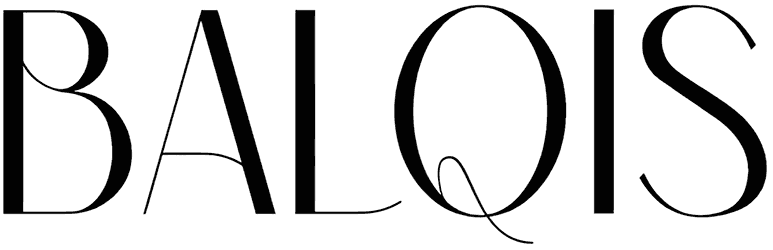
Balqis Font
This unique sans serif font is going to make your fashion poster memorable and surprising. The chic characters with delicate details will give a charming visual to your intended projects. The Balqis font, with its modern and stunning form, is a perfect selection for many layouts, from formal to informal ones.